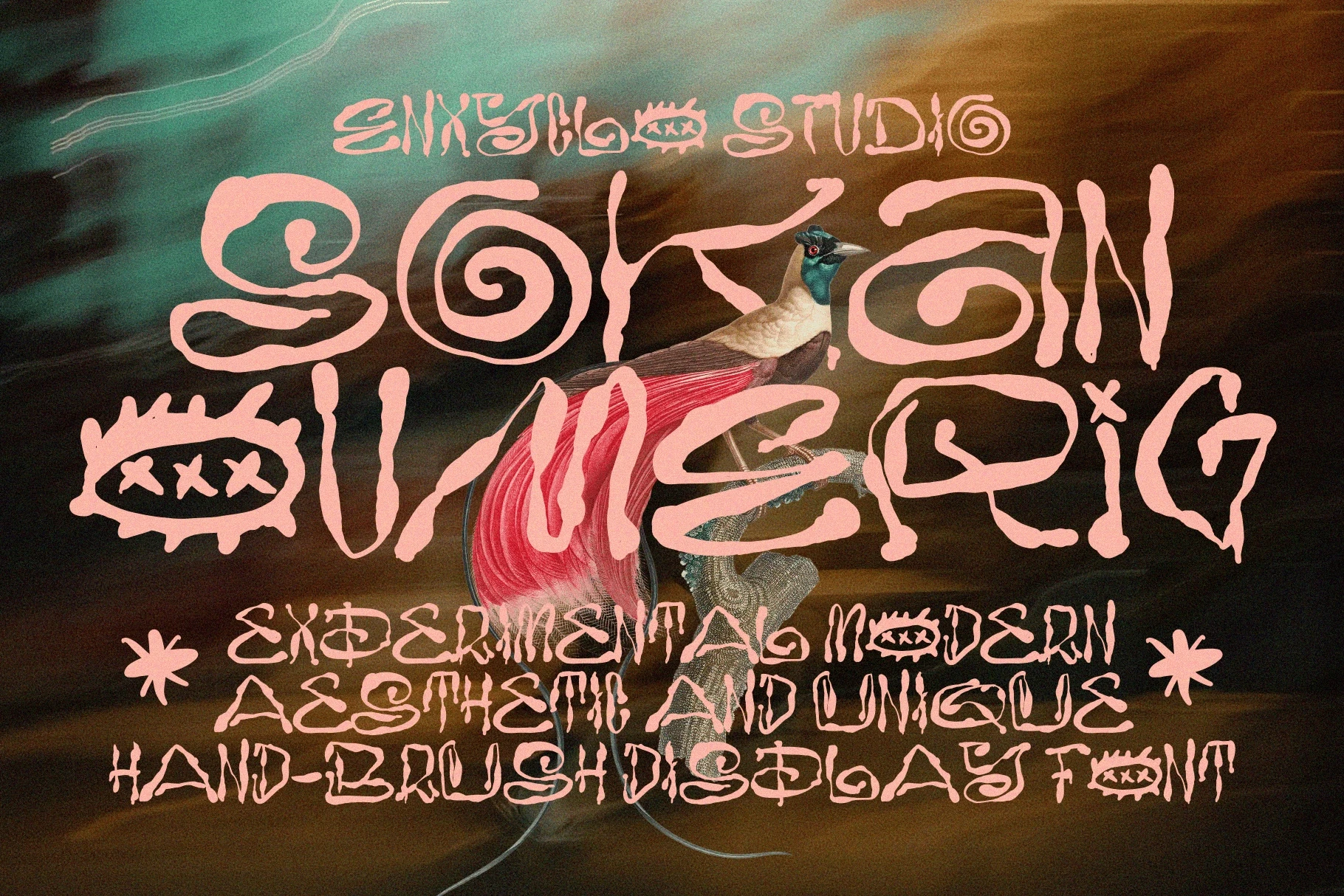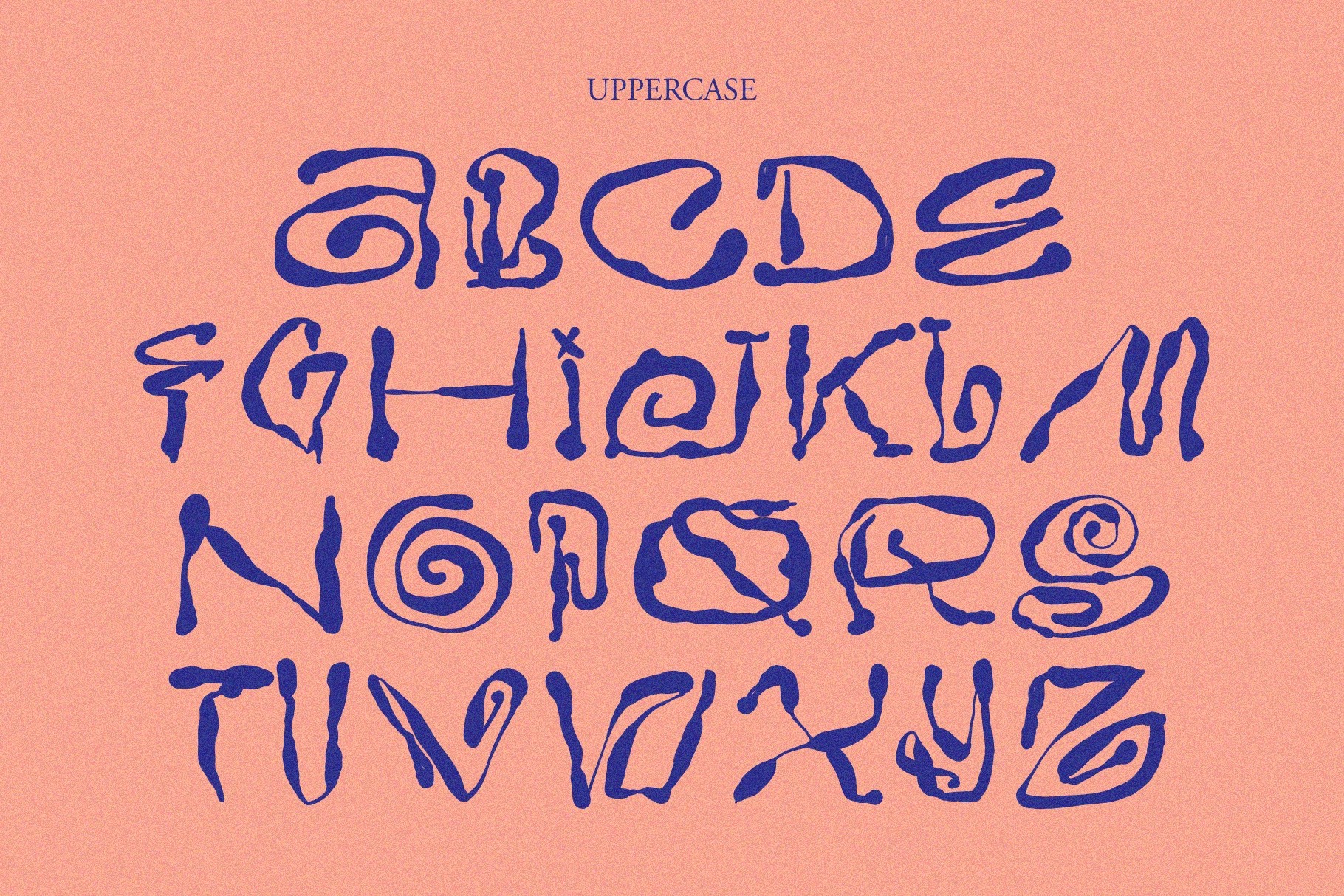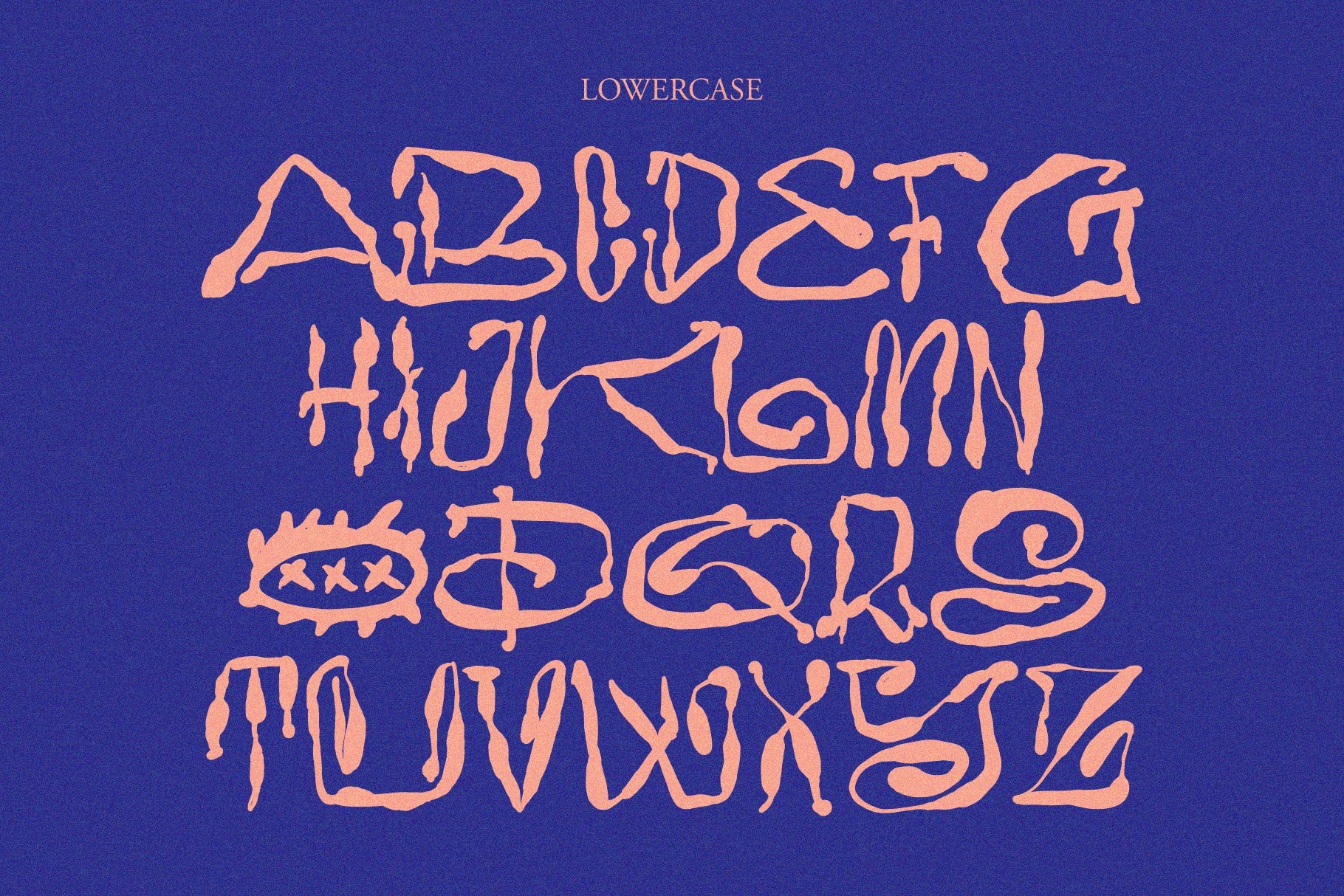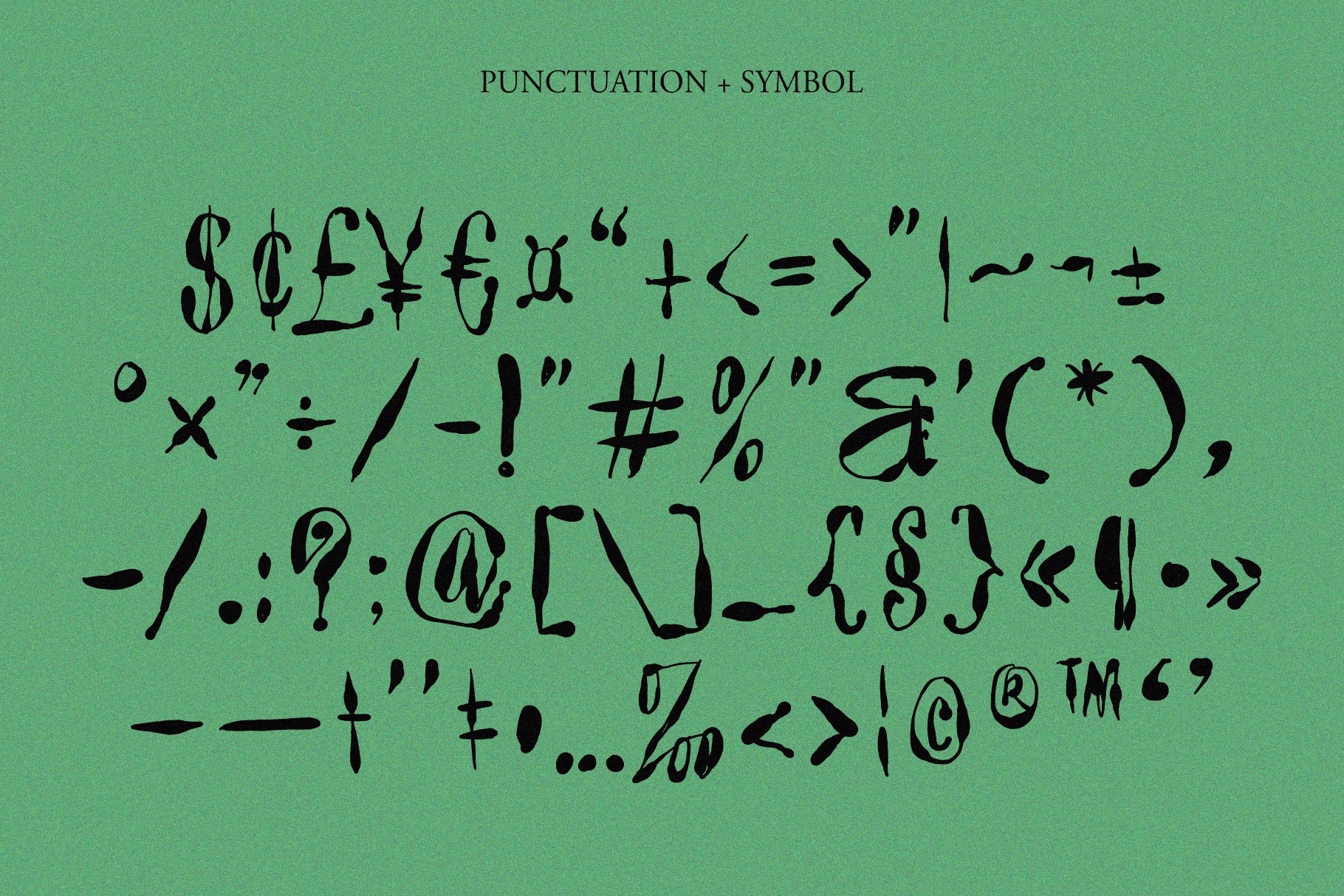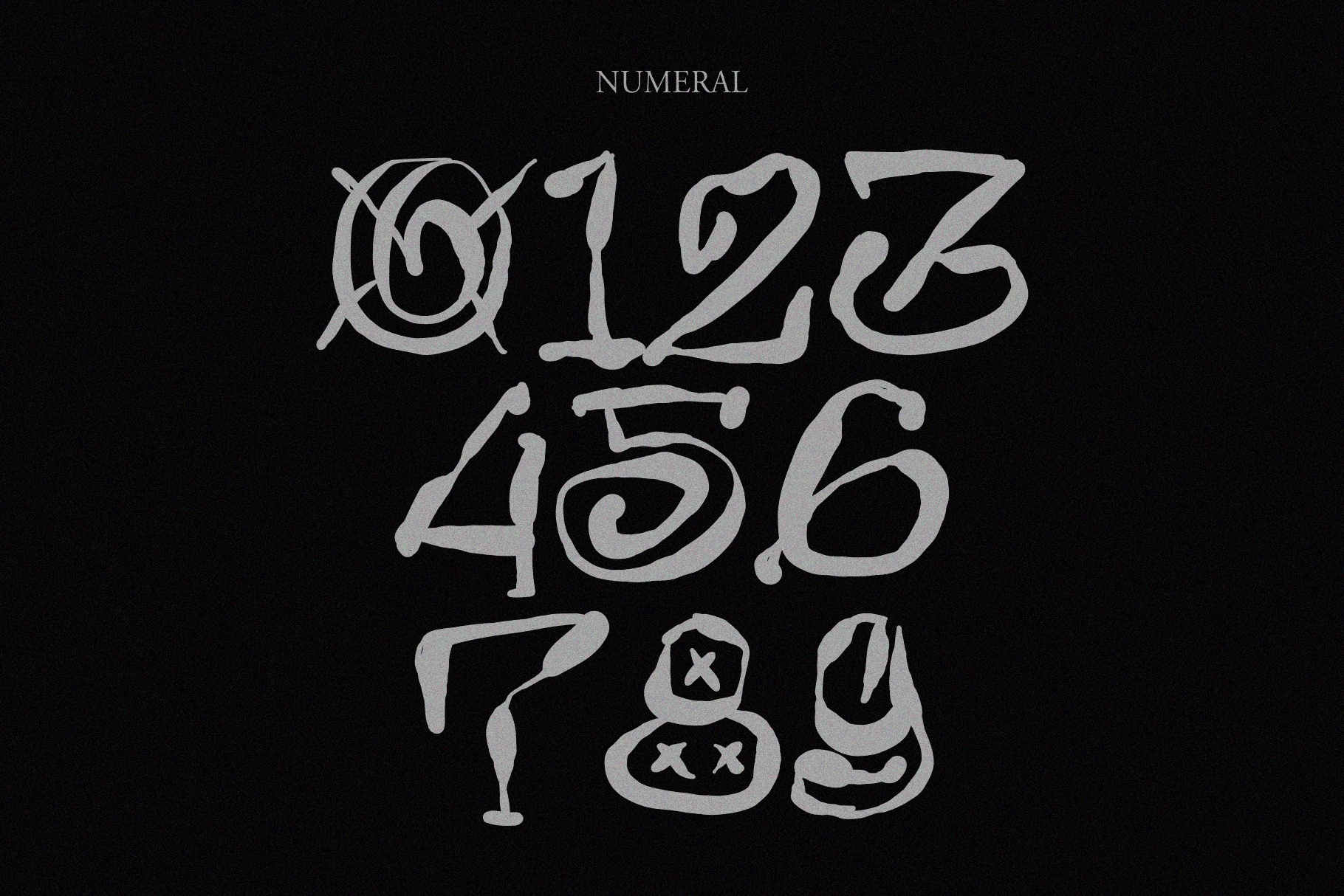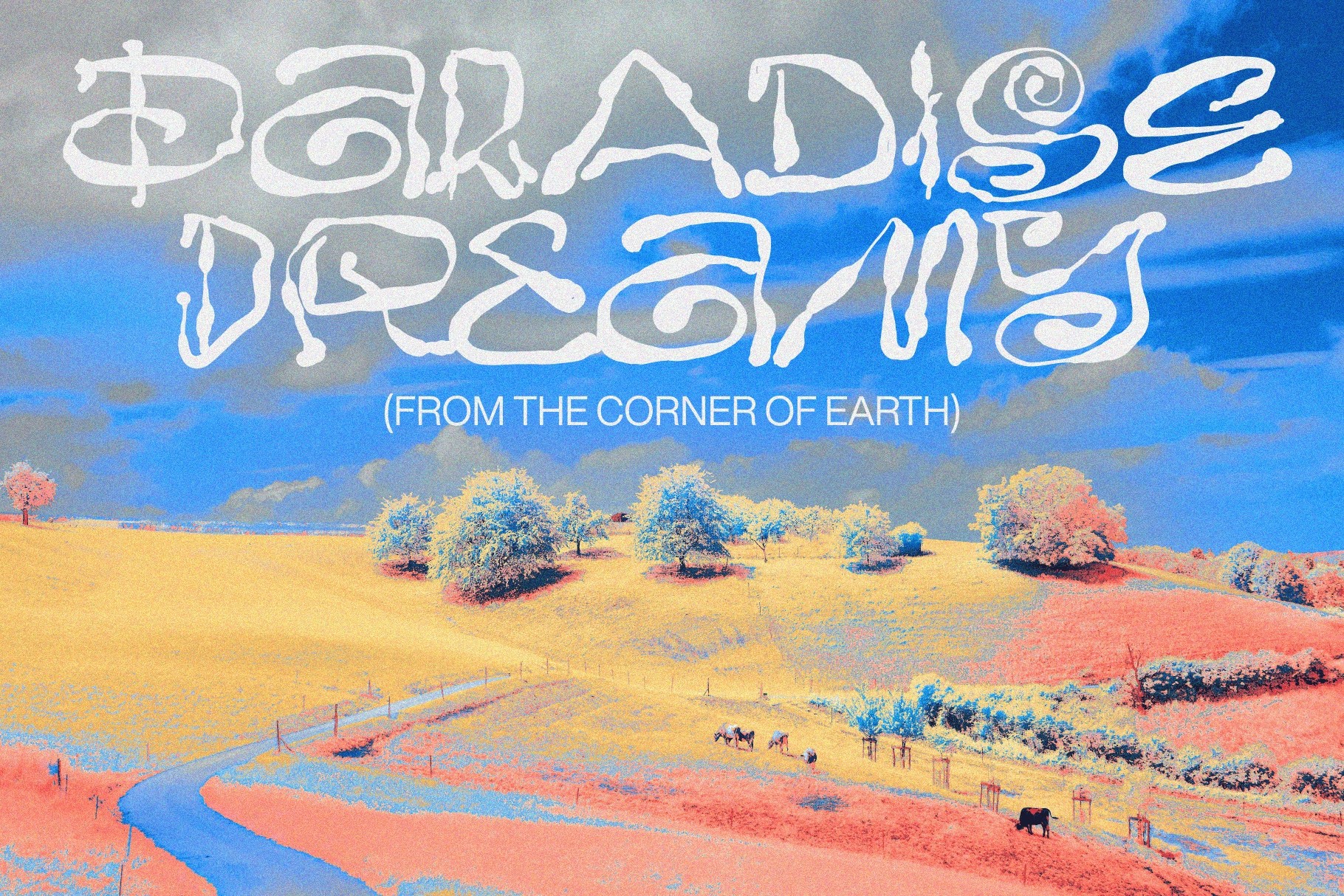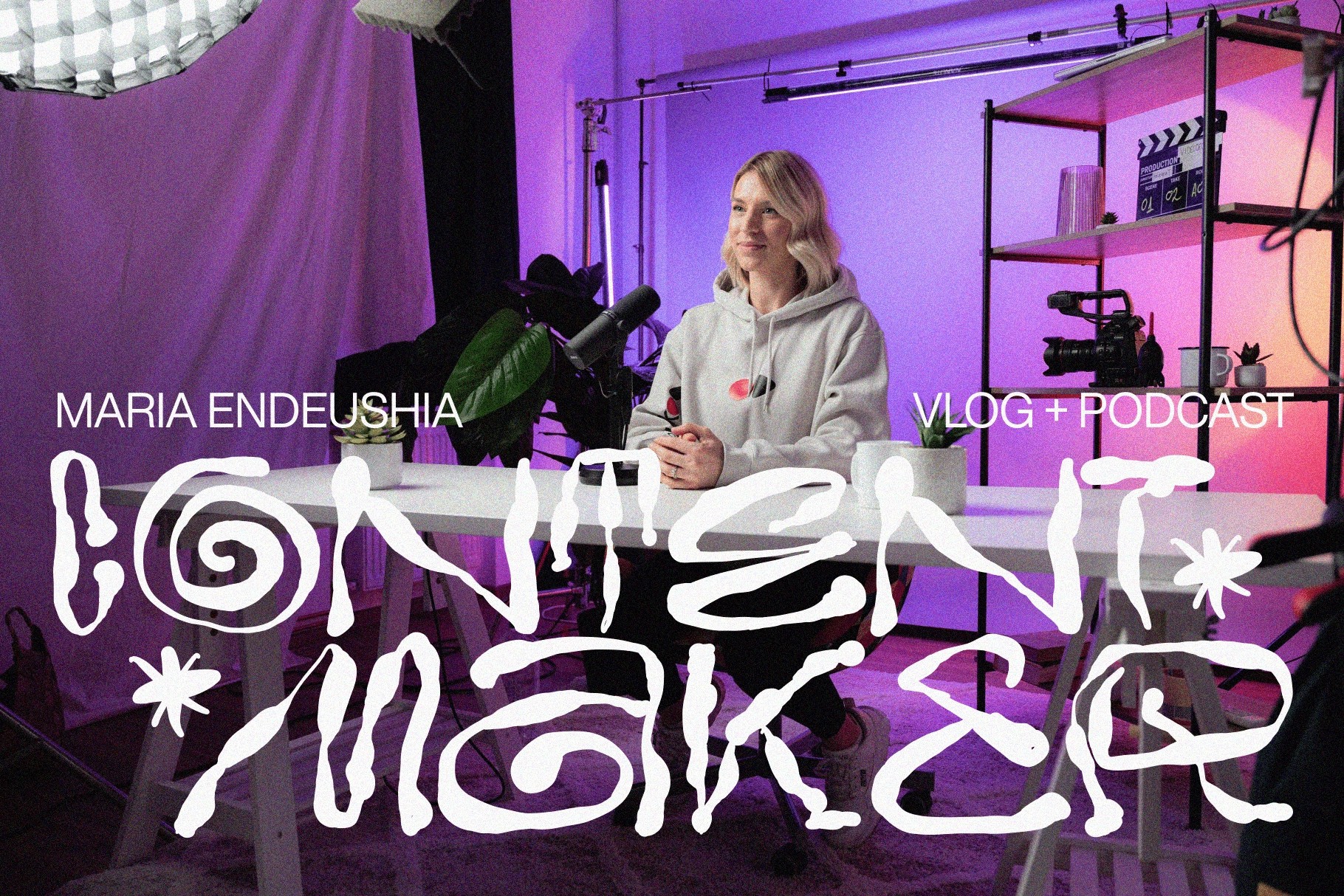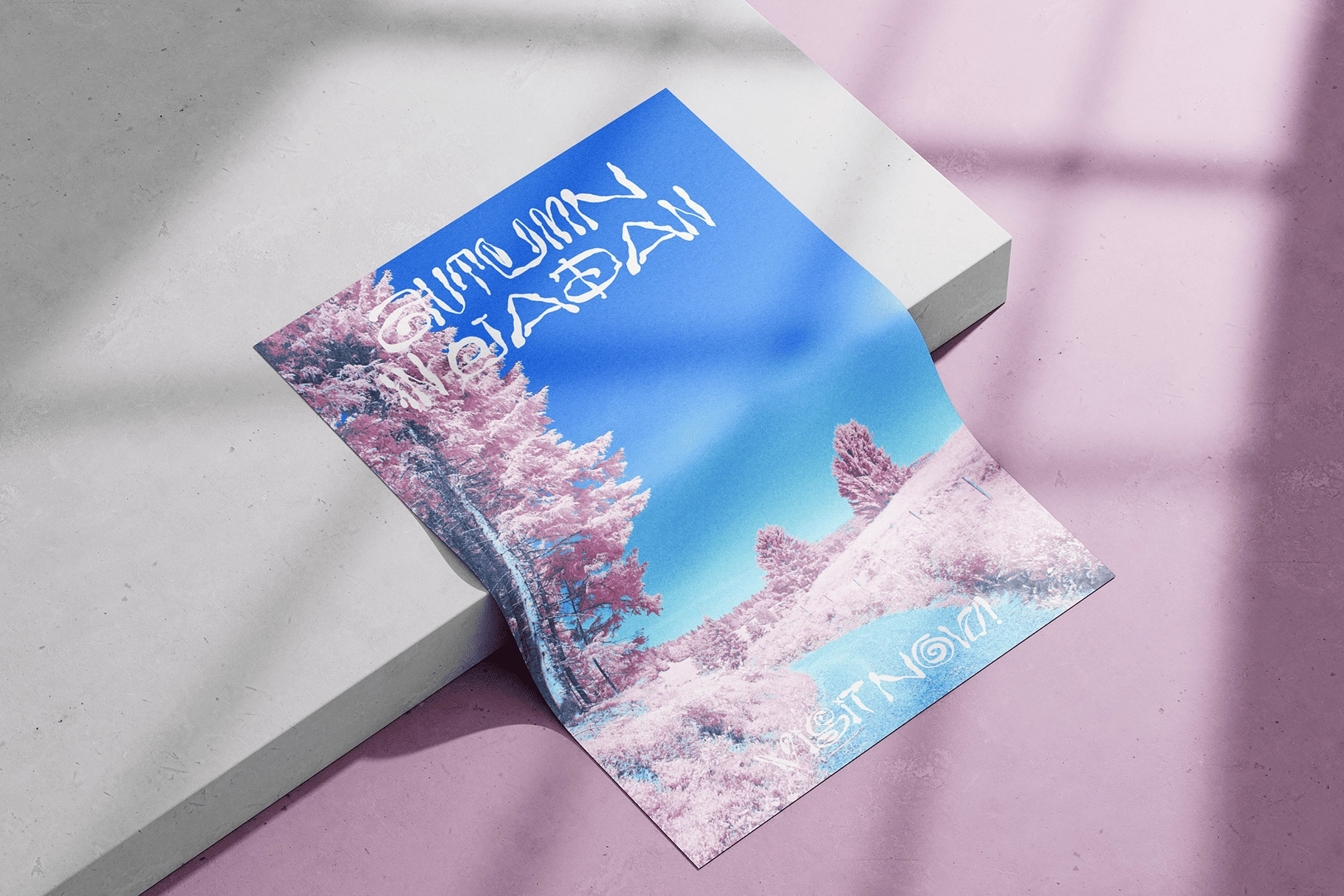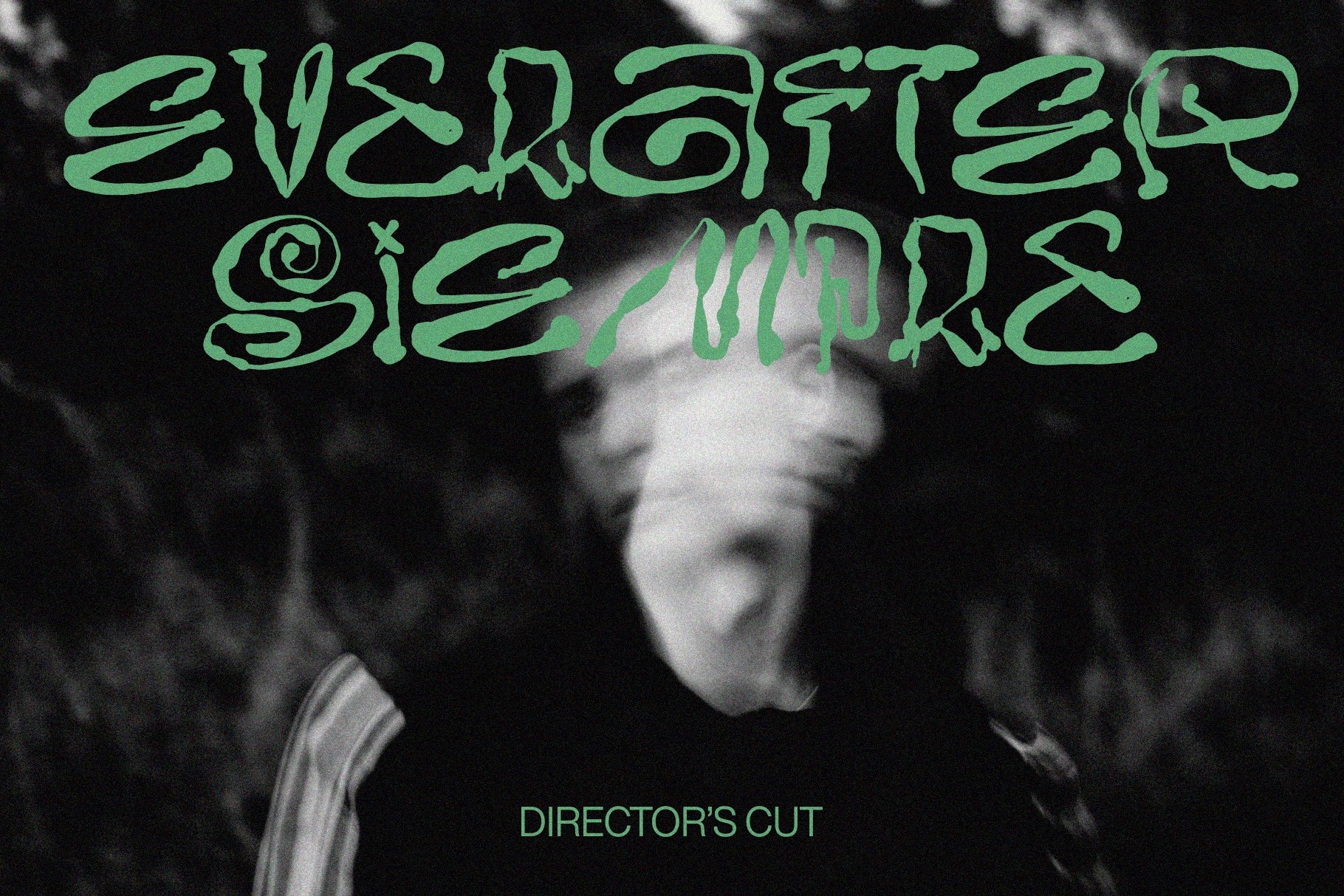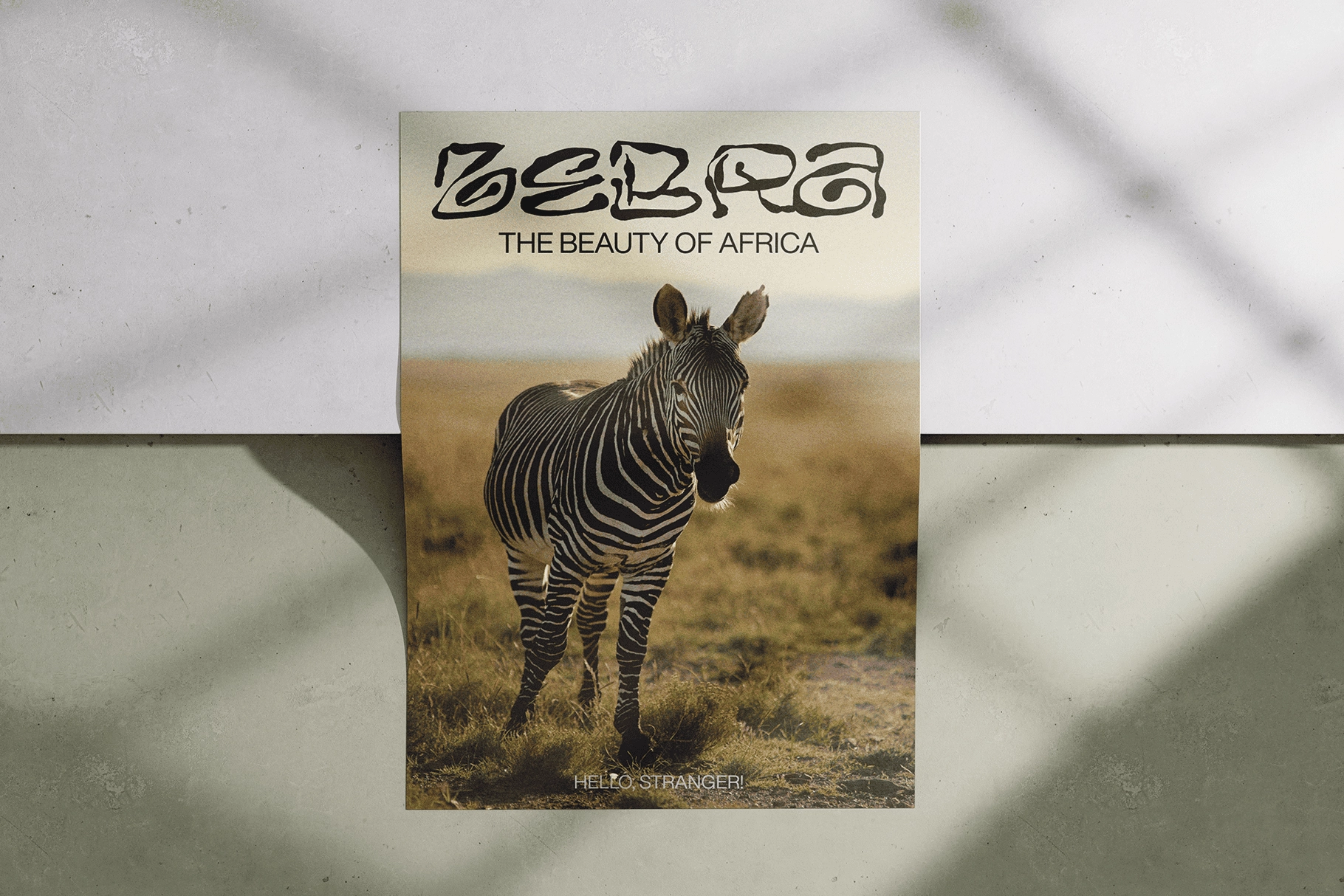
SOKAN OUMERIG — Rough Hand Drawn Font
Sokan Oumerig
This hand-drawn display font is raw, irregular, and loud in all the right places. Its brushy letterforms use rough edges, loose curves, spiral details, and scratchy marks for an experimental look with street-poster grit and art-school mischief.
- Uppercase & lowercase characters
- Hand-drawn rough brush style
- Ethnic and experimental letterforms